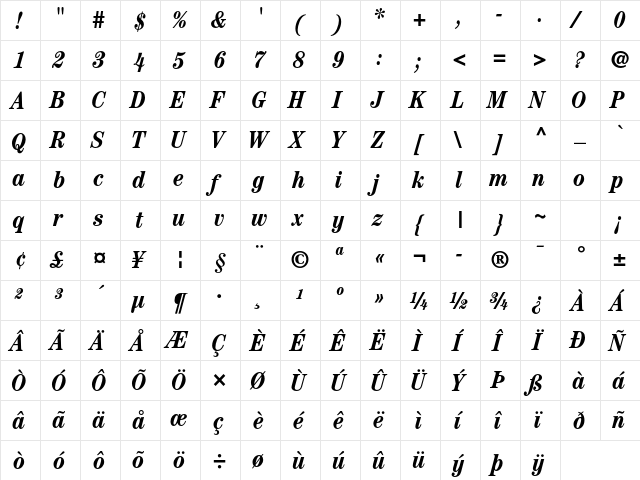
ITC Century Std Bold Condensed Italic Font Preview
| Designer | Tony Stan |
Design Context for ITC Century Std Typeface
ITC Century Std offers clean, dependable letterforms without strong stylistic allegiance, making it a practical choice for designers who need flexibility. Its italic angle brings a sense of urgency and motion to the letterforms. Its bold stroke weight gives it real presence on the page. The condensed width makes it efficient for tight spaces without sacrificing legibility.
Pro Tip: Try ITC Century Std for annotation and caption copy alongside an upright companion — the contrast in angle creates a dynamic but ordered typographic system.